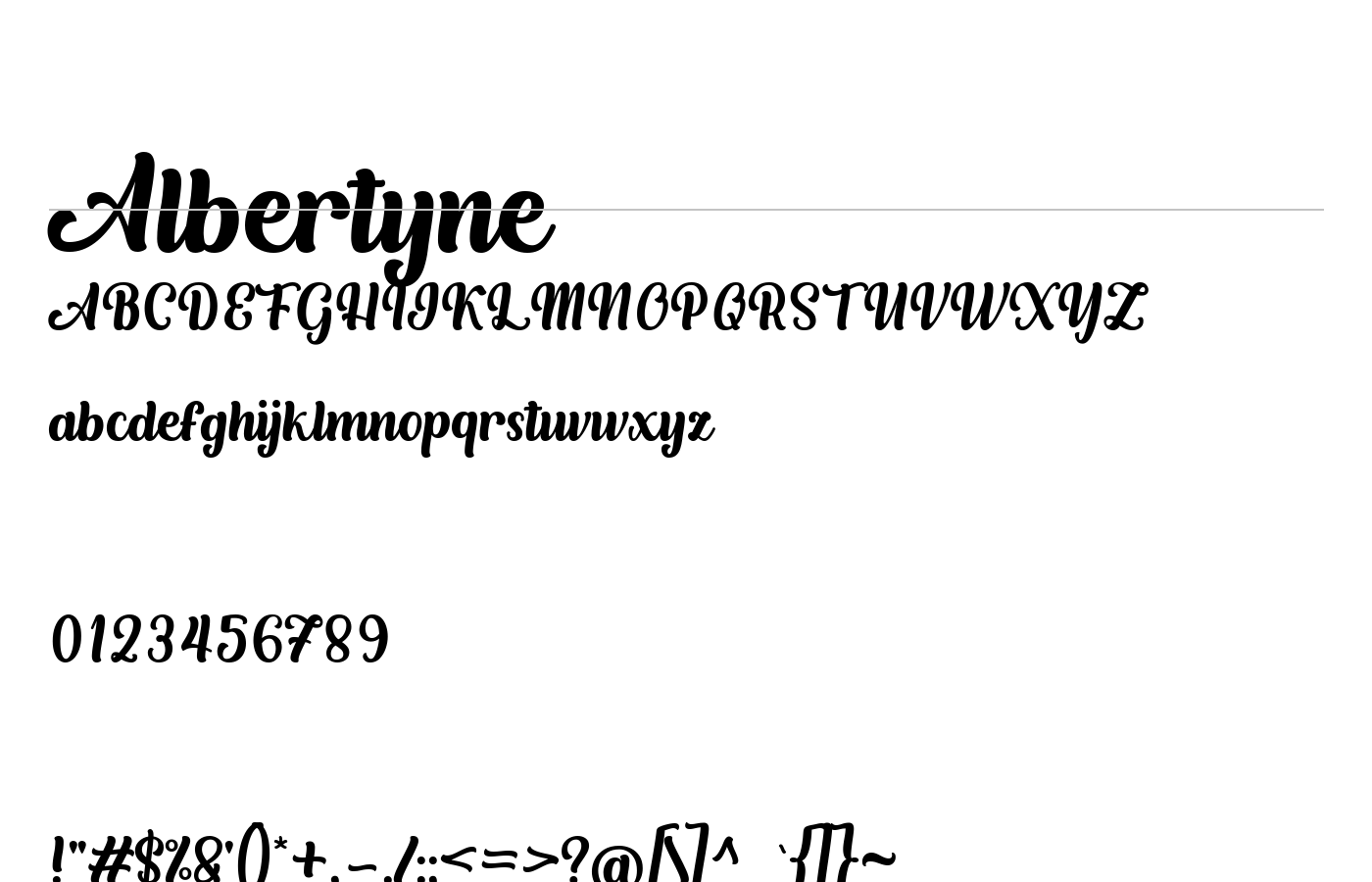
Albertyne is a charming script font with a bold and playful character, featuring smooth, flowing strokes and a moderately high x-height for readability. Its rounded, slightly condensed letterforms and whimsical uppercase letters give it a warm, inviting feel, making it ideal for creative branding, headlines, and decorative uses where a friendly yet stylish impact is desired. This font works well in contexts that call for a touch of personality and elegance without sacrificing clarity.
Albertyne Font